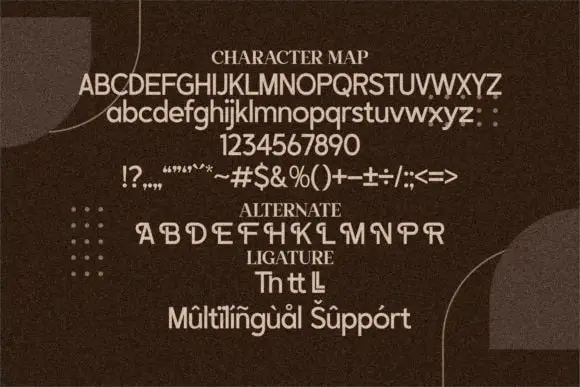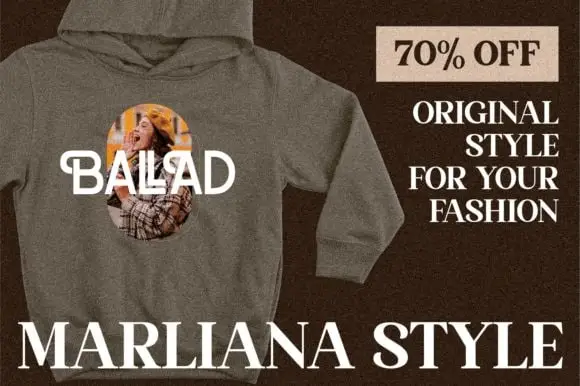
Letterenastudios-Ballad Font
The Letterenastudios-Ballad Font is a beautifully crafted typeface that brings elegance and sophistication to your projects. With its unique design, this font is perfect for a variety of applications, including branding, logos, web design, print materials, and user interfaces.
• Stylish and modern design
Ideal for creating eye-catching logos, elegant invitations, and stylish web typography. Pair it with complementary fonts for a balanced design.